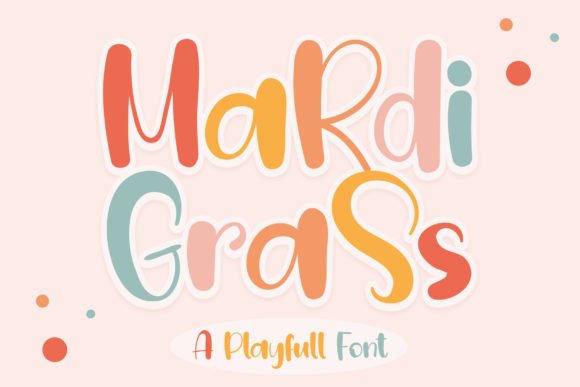
Behold Mardi Gras, the script font that will enchant your designs with a touch of luxury and allure. Let your creativity flourish as you witness the characters dance gracefully along the baseline, adding a spark of elegance to every project you envision.
Unleash your inner artist and create captivating logos that exude sophistication, or craft stunning invitations that will leave a lasting impression. Design social media posts that radiate charm and elegance, or elevate your website with a touch of handwritten artistry. The possibilities are endless with Mardi Gras, the font that will transform your designs into masterpieces.
Immerse yourself in the world of luxury and let Mardi Gras elevate your projects to new heights. Its beautiful curves and delicate strokes will add a touch of refinement to your branding, making your business stand out from the crowd. Your customers will be captivated by the charm and elegance that Mardi Gras brings to your designs, leaving them with a lasting impression that speaks volumes about your attention to detail and commitment to excellence.
Indulge in the beauty of Mardi Gras and let your creativity soar. Experience the joy of creating designs that captivate and inspire, leaving an indelible mark on all who encounter them. Embrace the luxury and sophistication that Mardi Gras embodies, and unlock a world of endless possibilities for your creative endeavors.